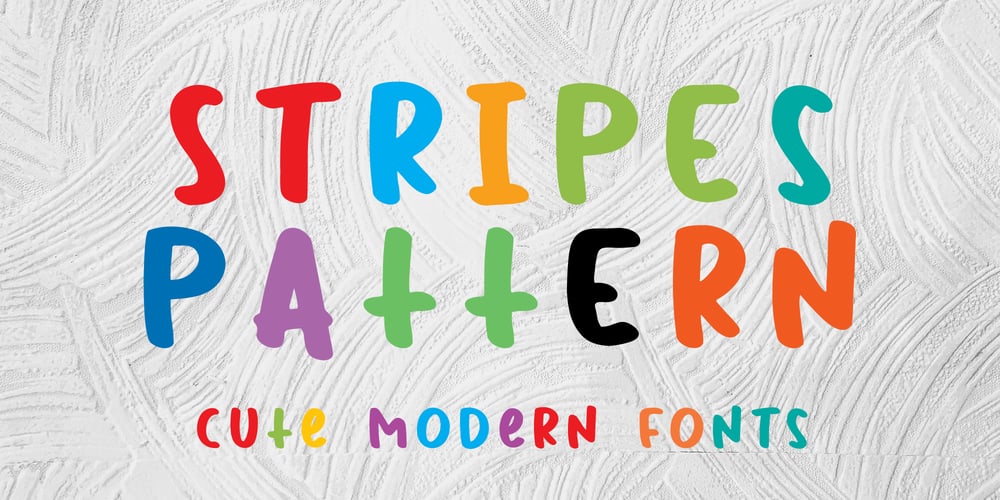
Stripes Pattern Font Family was designed by Stefie Justprince and published by Crumphand. Stripes Pattern contains 1 styles and family package options. Hello, here’s the new fonts Stripes Pattern.Inspired by children book.The font is cute, good for your comic, brand, youtube, movie production etc.What’s Included Inside The Fonts ? Uppercase Lowercase Symbols Numerals European Multilingual Thank you, Regards!